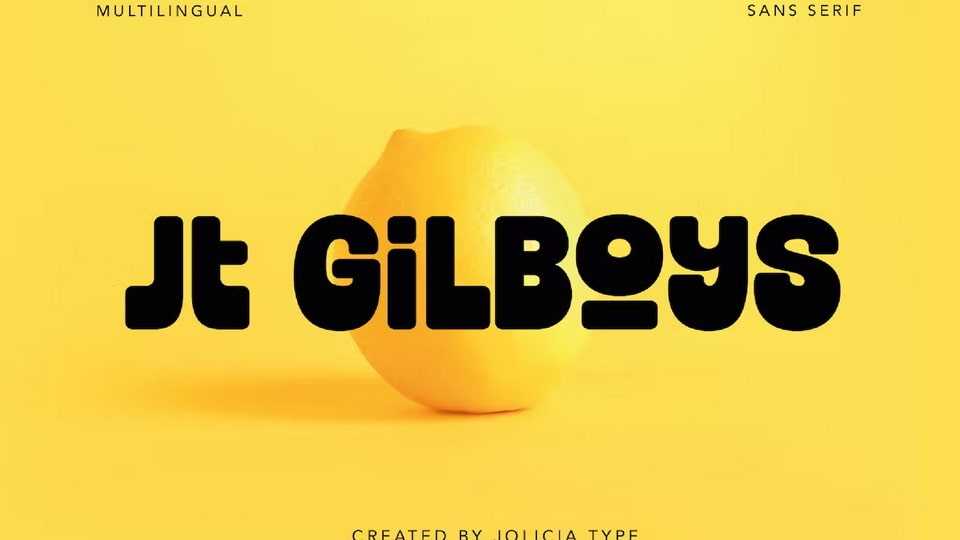
Download JT Gilboys font, a display typeface inspired by bold and rounded vintage lettering. Very charismatic, fat and impactful, JT Gilboys font is the best choice for editorial use.